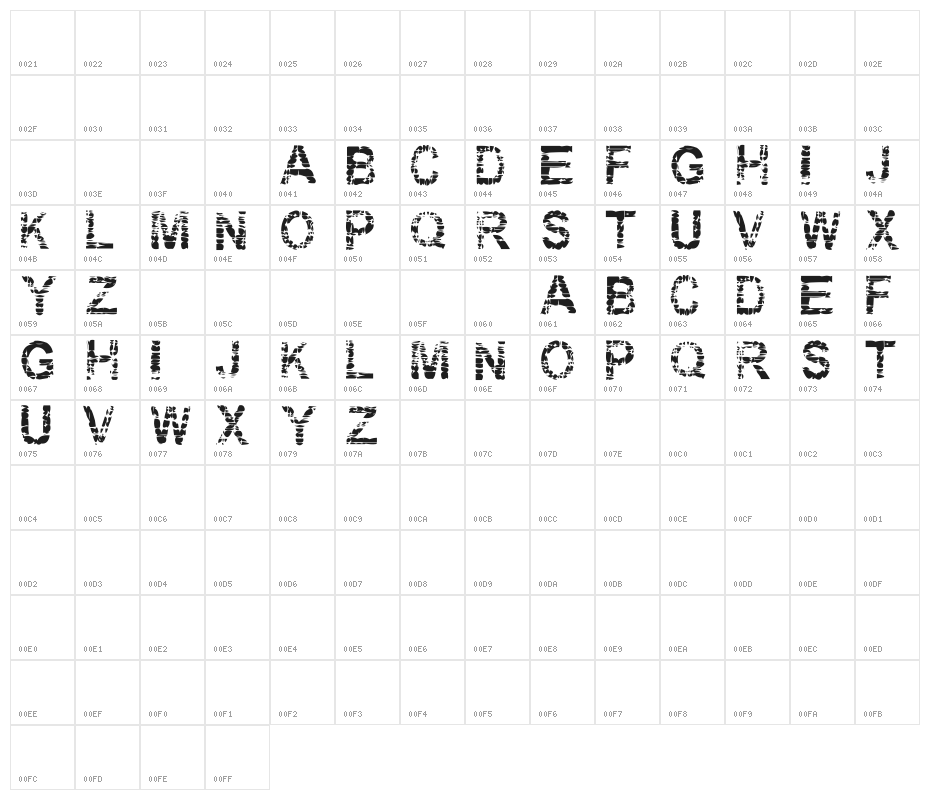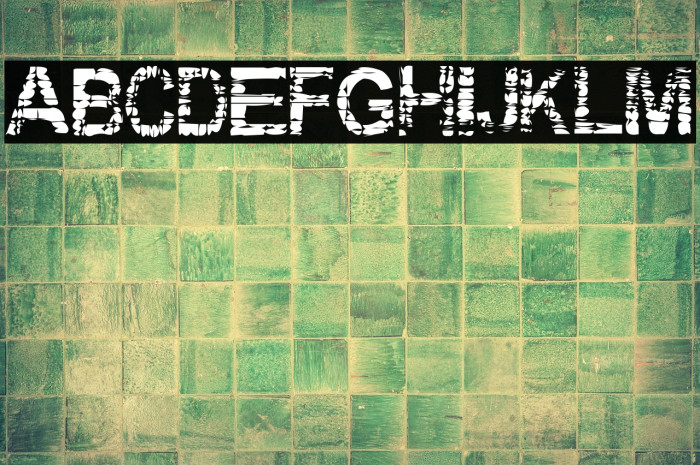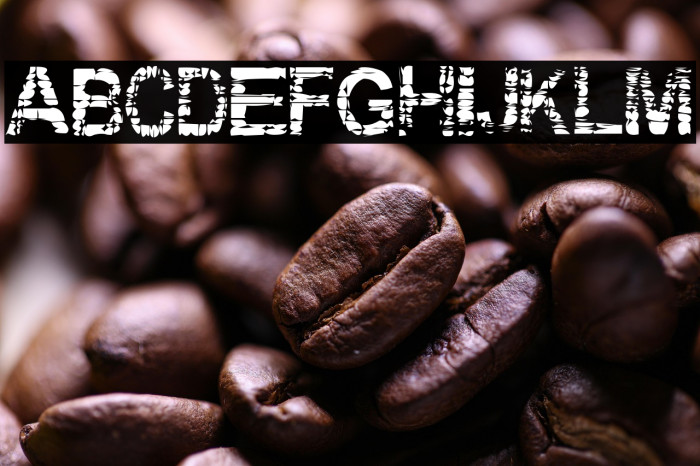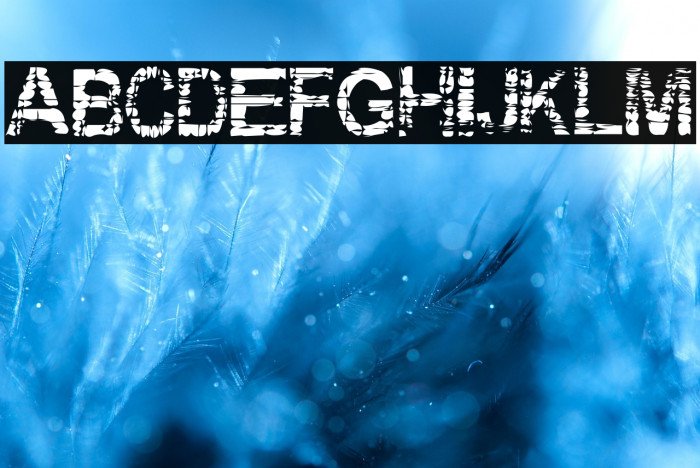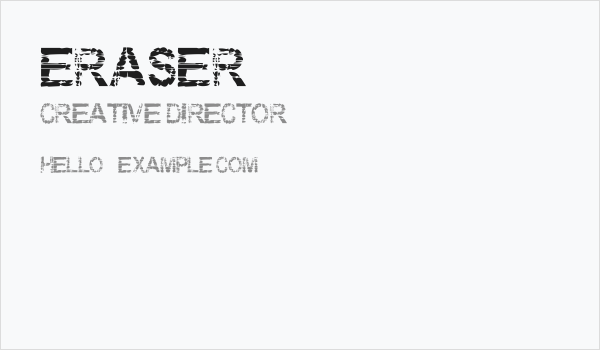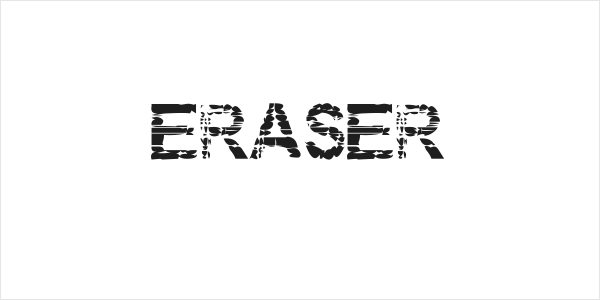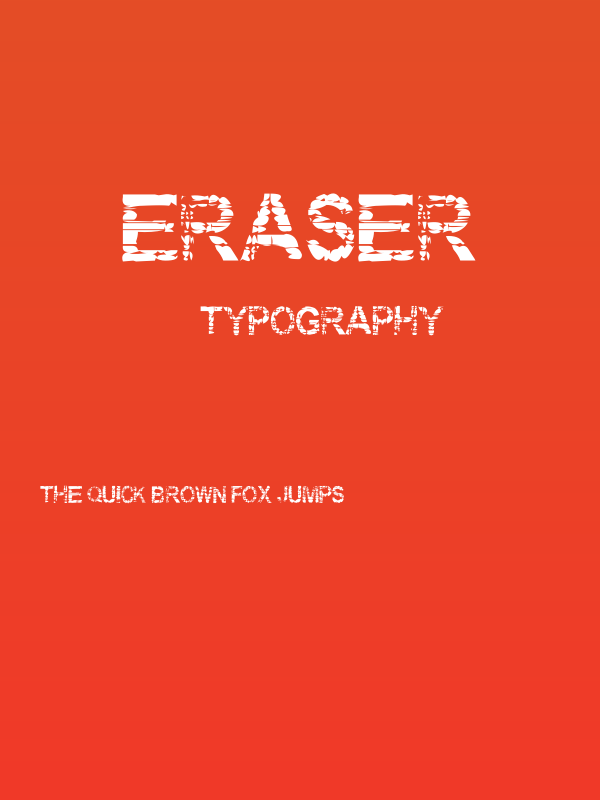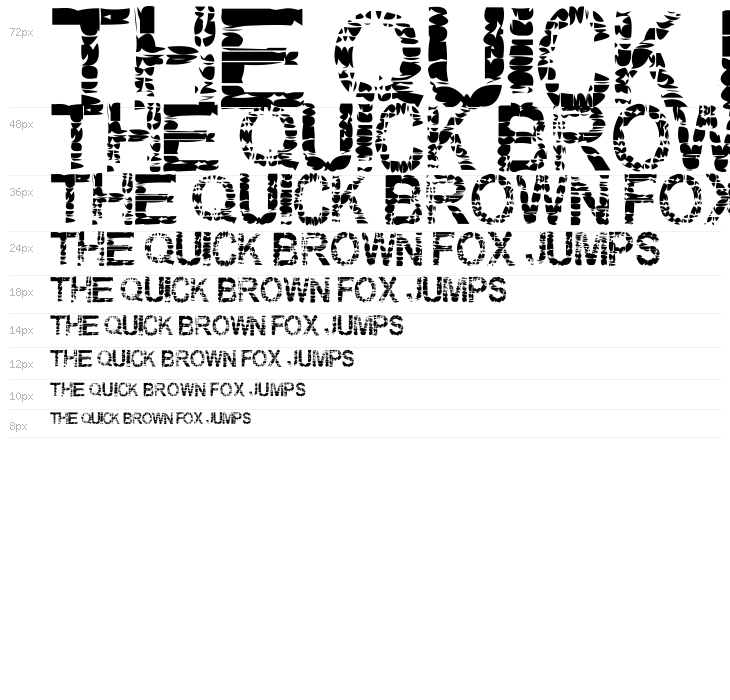
Eraser Font
Eraser Description
This font features a distressed and eroded appearance, giving it a unique and edgy style. The characters are bold and uppercase, with a rough texture that suggests wear and tear. The design is reminiscent of graffiti or street art, making it ideal for projects that require a gritty, urban aesthetic. The irregularity in the letterforms adds a dynamic and energetic feel, while maintaining legibility. This font is perfect for creating eye-catching headlines, posters, or any design that aims to convey a sense of rebellion or nonconformity.
| Overall Style | Urban, Edgy, Distressed |
| Use Case | Headlines, Posters, Branding |
| Proposed Projects | Ideal for posters, album covers, streetwear branding, and urban-themed designs. |